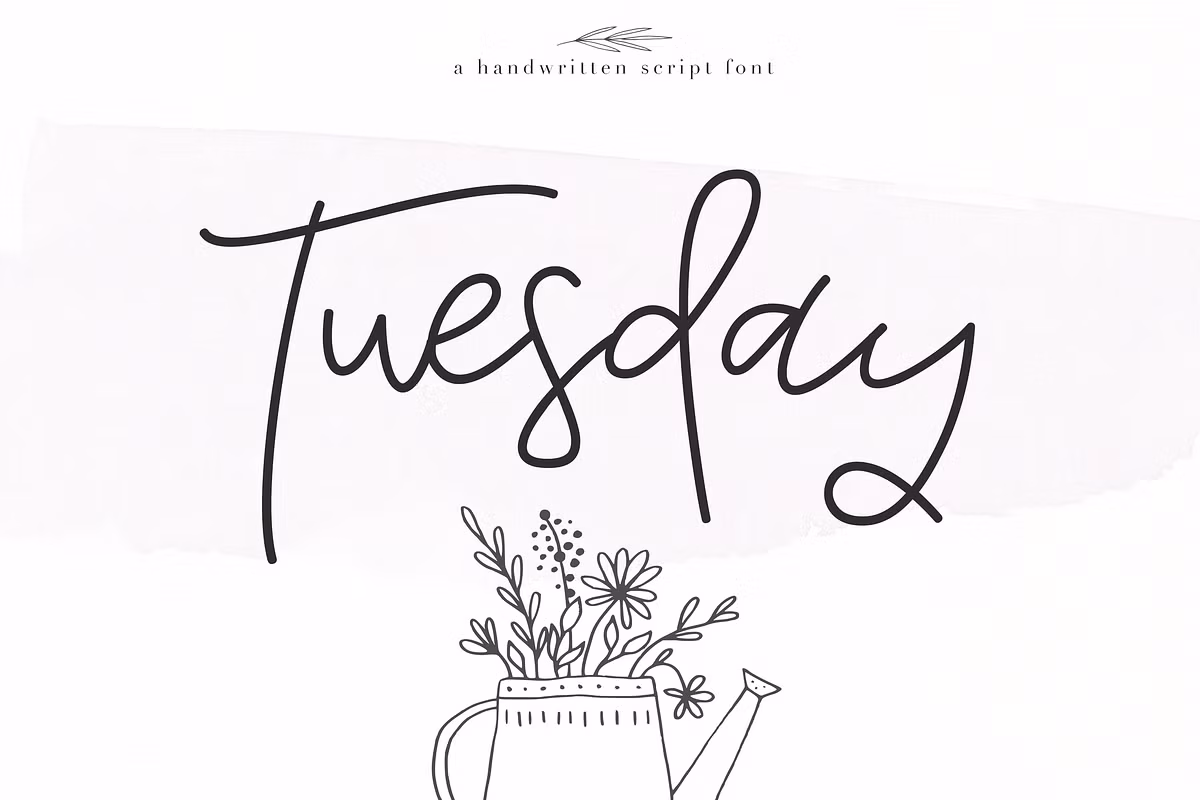
Tuesday - Handwritten Script Font Free Download
You must purchase this font for commercial use. However, you can download Tuesday - Handwritten Script Font Free Download for testing purposes. Tuesday is a beautiful, flowing handwritten script font with a natural, personal feel. With its elegant loops and fluid strokes, this font is perfect for projects that require a touch of warmth and personality, such as invitations, greeting cards, logos, branding, and social media posts.
The carefully crafted letterforms offer a stylish, yet approachable aesthetic, making Tuesday ideal for both formal and casual designs. Whether you're creating a chic logo, crafting a heartfelt invitation, or adding a personal touch to your brand, this font brings authenticity and charm to your typography.